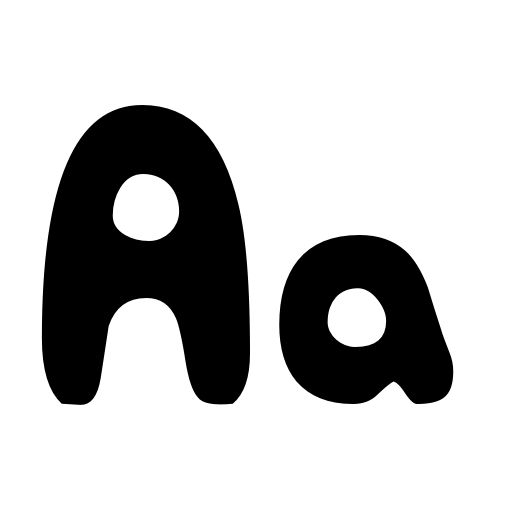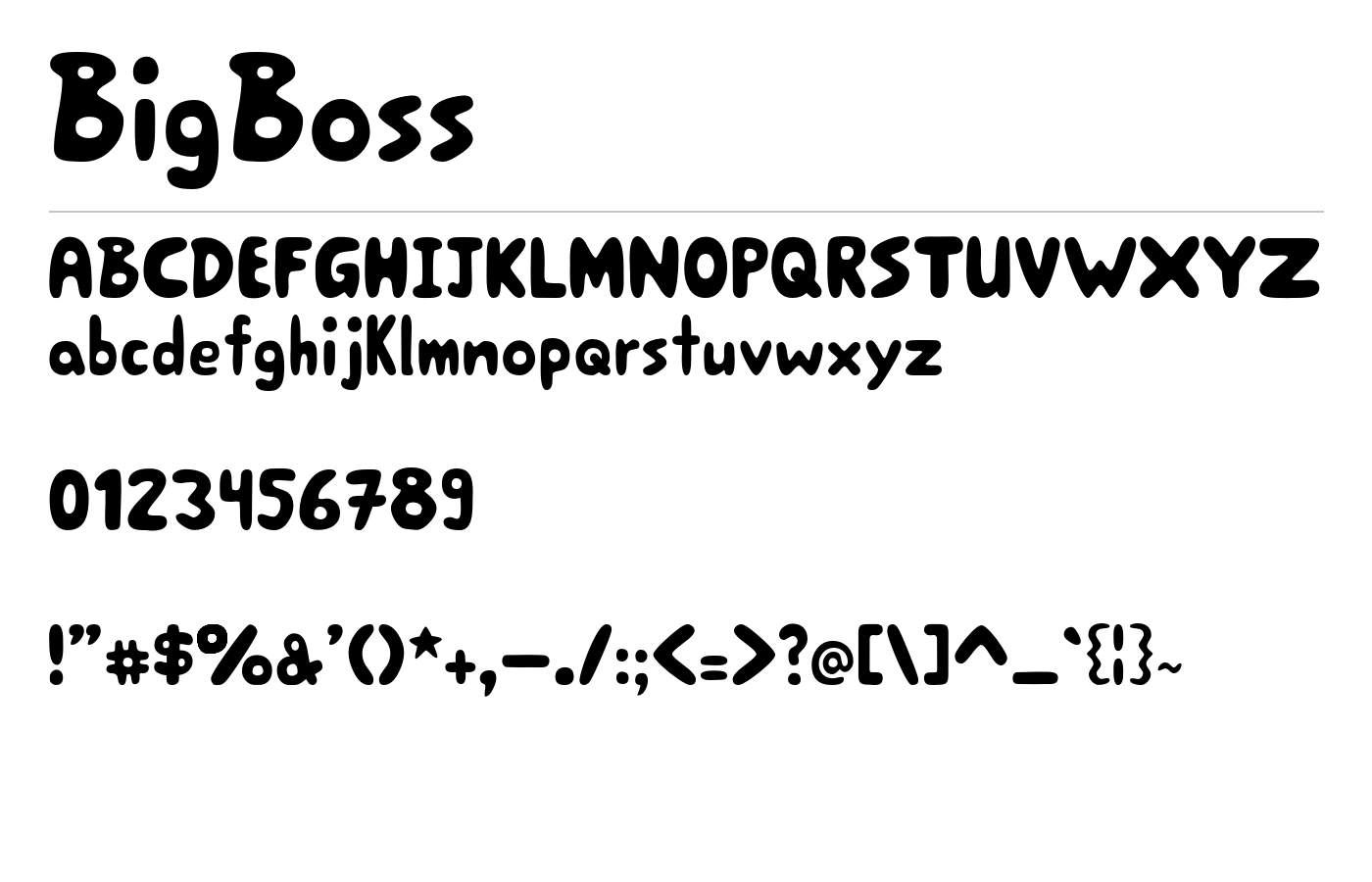
BigBoss is a playful, bold sans serif font with rounded edges and a chunky, friendly appearance. Its casual, slightly irregular letter shapes make it ideal for fun branding, children’s products, posters, or any design seeking an approachable and energetic vibe. This font works best for headlines or logos where a lively, informal style is desired.
BigBoss Font
About BigBoss Font